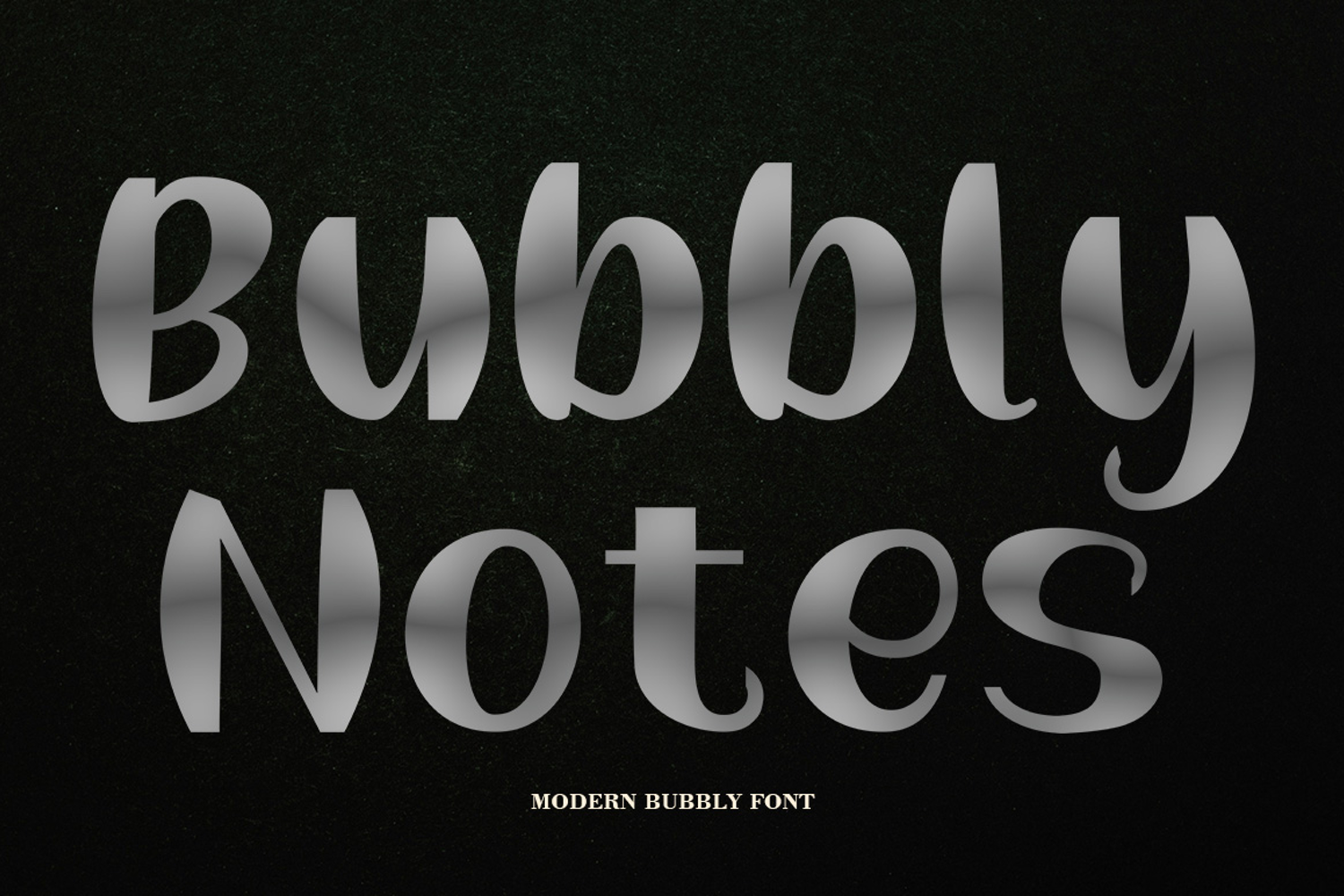
Beautiful Handwriting
Bring a cheerful, modern vibe to your designs with Bubble Notes — a playful and stylish display font that captures the essence of casual creativity. Its smooth, rounded strokes and expressive letters create a friendly and welcoming tone, perfect for adding warmth and personality to your work.
Each letter flows naturally, giving your designs a handcrafted and authentic look. Whether you’re designing logos, invitations, greeting cards, posters, or social media templates, Saturday Handwritten brings a touch of charm and modern flair to every project.